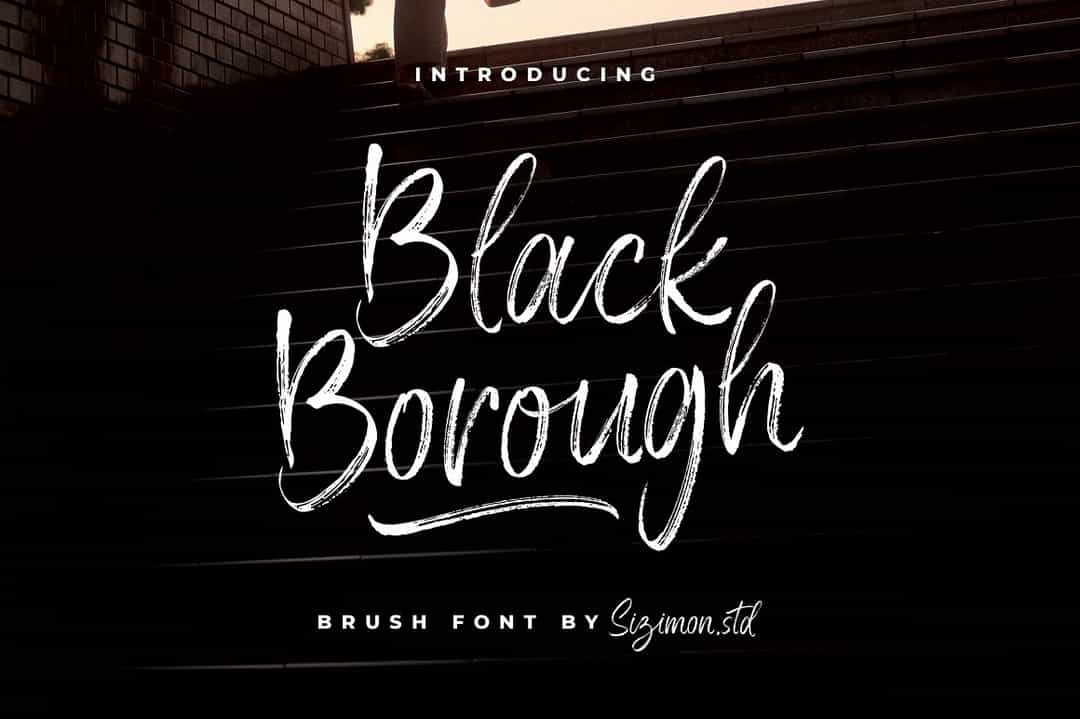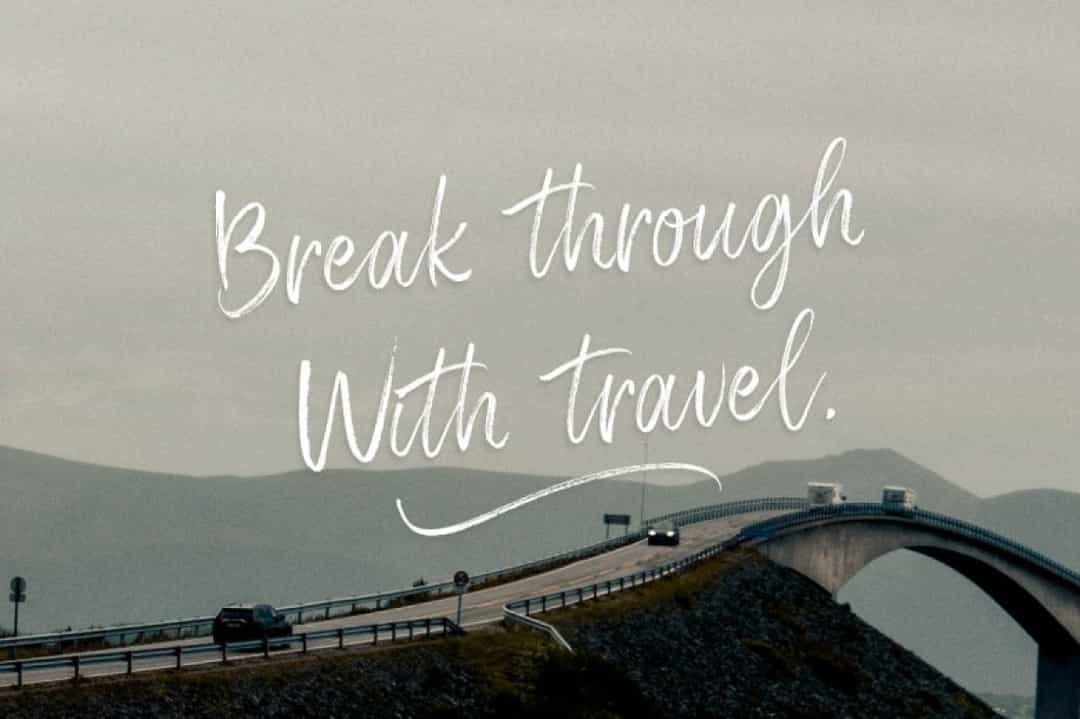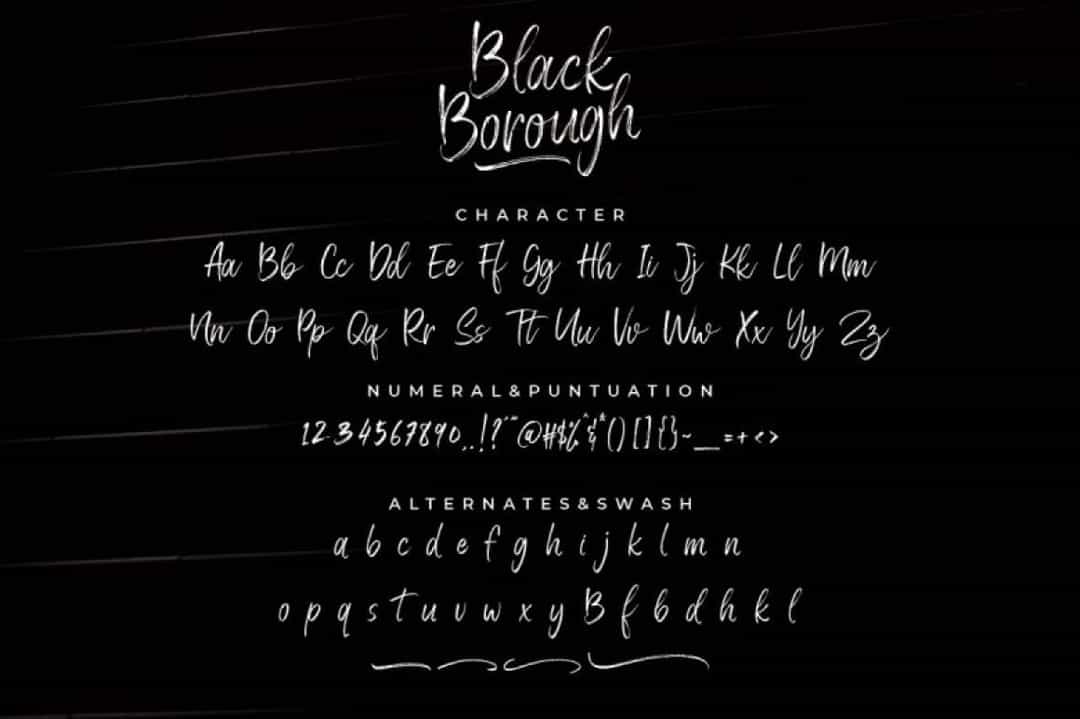
Black Borough Brush Font is an hand-painted font designed with particular care given to quick strokes and dry textures, perfect for name tags, logos, handwritten quotations packaging products social media greeting cards. Also very simple for customizing T-Shirts as well as other products saving time when creating designs for products.